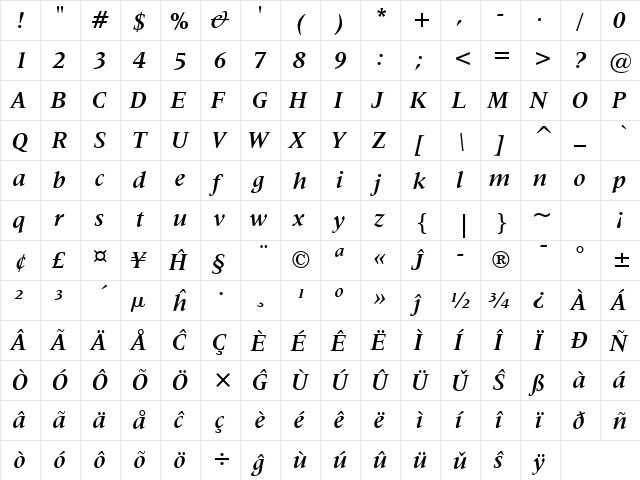
Latin725 BT Eo Bold Italic
Design Context for Latin725 BT Eo Typeface
Latin725 BT Eo is a composed and adaptable typeface that performs quietly and consistently across a wide range of design contexts. Its italic angle brings a sense of urgency and motion to the letterforms. The heavy weight commands attention and anchors typographic hierarchies.
Pro Tip: Try Latin725 BT Eo for annotation and caption copy alongside an upright companion — the contrast in angle creates a dynamic but ordered typographic system.